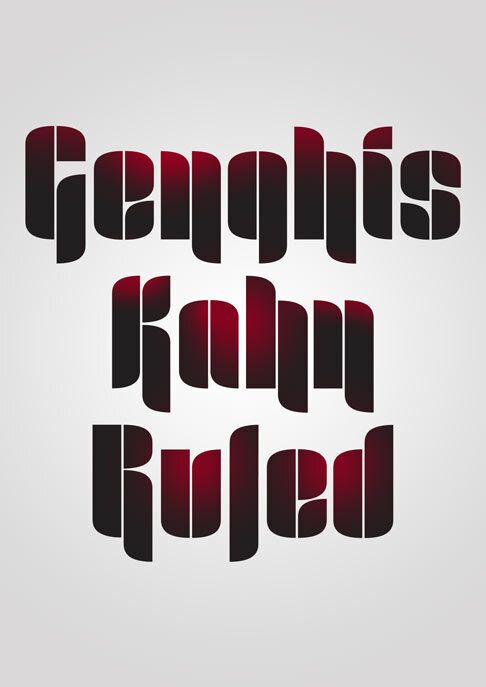
Mr.B Dull
Unleash the bold, retro spirit of Mr.B Dull, a captivating display font crafted by the acclaimed designer Michael F. Campbell, also known as Mr. Blonde. This condensed, bold typeface exudes a commanding presence, its sharp edges and angular curves evoking a sense of unapologetic confidence and a touch of nostalgia.
Mr.B Dull's distinctive aesthetic lends itself seamlessly to a wide range of design applications, from eye-catching headlines and impactful branding to retro-inspired logos and memorable packaging. Its versatility shines through, making it a compelling choice for projects seeking to convey a bold, retro-infused message that demands attention.
Some alternates are available. Sorry, it is lacking glyphs and some punctuation, as it is a display face after all. If there is a demand, I will design them.
Mr.B Dull's distinctive aesthetic lends itself seamlessly to a wide range of design applications, from eye-catching headlines and impactful branding to retro-inspired logos and memorable packaging. Its versatility shines through, making it a compelling choice for projects seeking to convey a bold, retro-infused message that demands attention.
Some alternates are available. Sorry, it is lacking glyphs and some punctuation, as it is a display face after all. If there is a demand, I will design them.